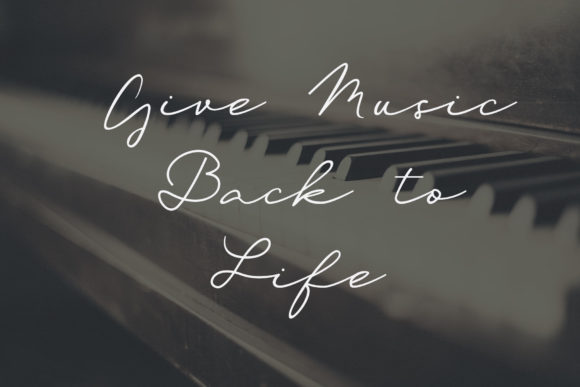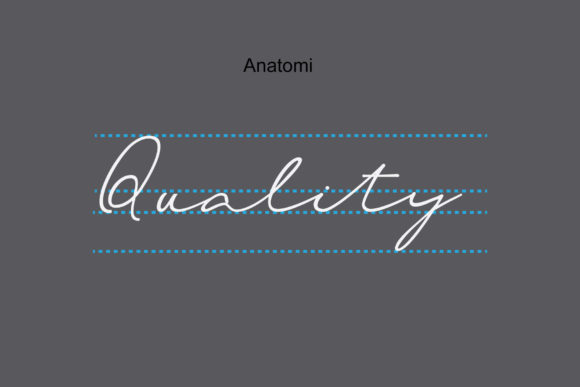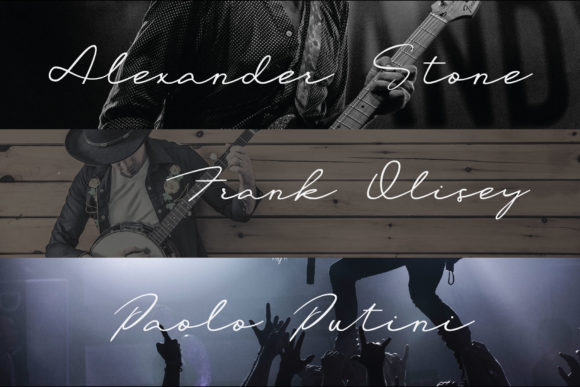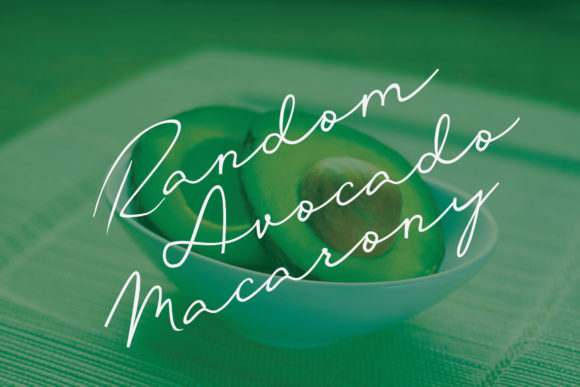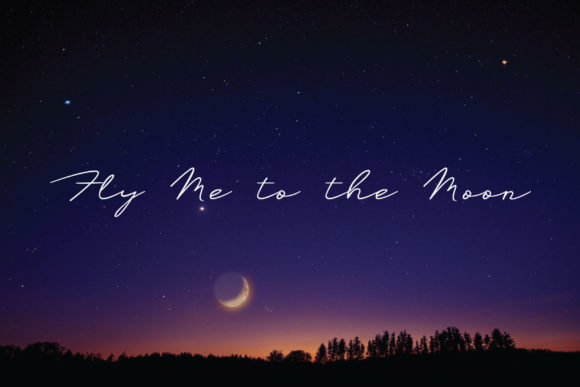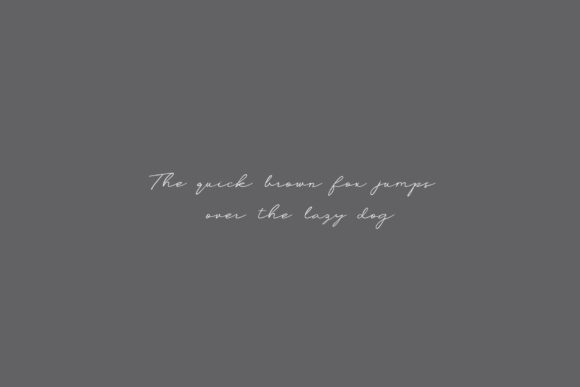
Introduction to Oliver Quin Font
As a designer, there’s nothing quite like the thrill of bringing a project to life. It’s that moment when all the pieces come together, and your vision starts to take shape. For me, it’s often the choice of font that makes or breaks the look and feel of a design. That’s why I’m excited to share with you one of my favorite design resources: the Oliver Quin Font.
This beautiful, high-quality font is perfect for adding a touch of elegance and sophistication to any creative project. Its free-flowing, handwritten style is both stylish and versatile, making it a valuable addition to any designer’s toolkit. With its transparent background and seamless integration with other design elements, the Oliver Quin Font is a game-changer for anyone looking to elevate their designs.
Key Features of Oliver Quin Font
- High-quality, professional design suitable for creative projects and business materials
- Comes with a transparent background, making it easy to use on various design resources
- Font size: 1000 characters (including uppercase, lowercase, numbers, and special characters)
- Resolution: Optimized for high-resolution displays, ideal for printing and digital use
- Perfect for designers and artists looking for a unique and elegant font for their creative projects
Honest Review: Oliver Quin Font
- ✨ High quality design: The font is well-crafted and has a professional look to it.
- ✨ Versatile: The Oliver Quin Font can be used for a variety of projects, from print to digital design.
- ⚠️ Limited styles: The font comes in a limited number of styles, which may not be suitable for complex design projects.
- ⚠️ No transparent background: The font does not support transparent backgrounds, which can be a limitation for designers who need to work with images or videos.
Overall, I’m impressed with the Oliver Quin Font, and I would definitely recommend it to designers who are looking for a high-quality, free design resource. While it may have some limitations, the font is still a great addition to any design project.
Introduction to Oliver Quin Font
The Oliver Quin Font is a high-quality, free design resource that can elevate any creative project. This versatile font is perfect for designers and non-designers alike, offering a transparent background that can be easily customized to fit your needs.
Use it in combination with other high-quality design resources to create a cohesive look.
Take advantage of the transparent background to create visually appealing designs.
Common Use Cases for Oliver Quin Font
The Oliver Quin Font is suitable for a variety of creative projects, including:
Branding and logo design
Marketing materials and brochures
Presentations and reports
Web design and development
Alternatives to Oliver Quin Font
Noto Sans is a high-quality sans-serif font ideal for creative projects that require a clean and modern look. It’s perfect for designs with transparent backgrounds and can be used as a design resource for various applications. Noto Sans is free to download and is available in multiple languages.
Compared to Oliver Quin Font, Noto Sans has a more geometric and minimalist design, making it suitable for digital interfaces and user-friendly designs.